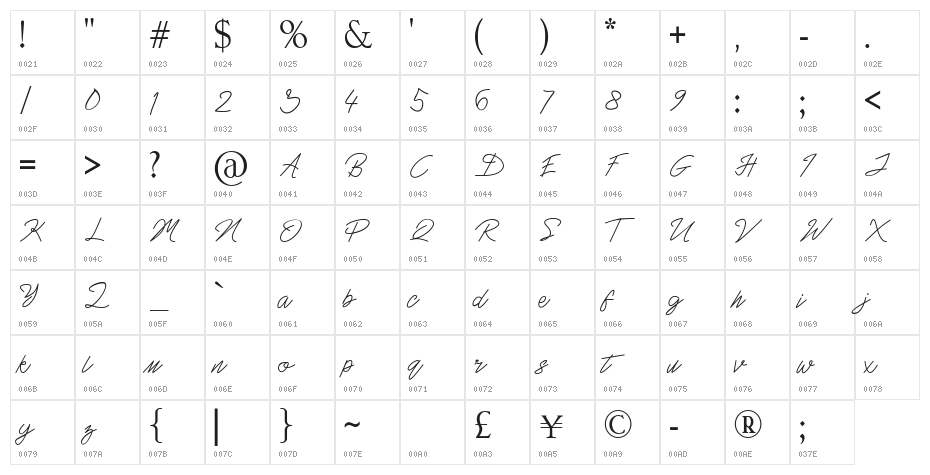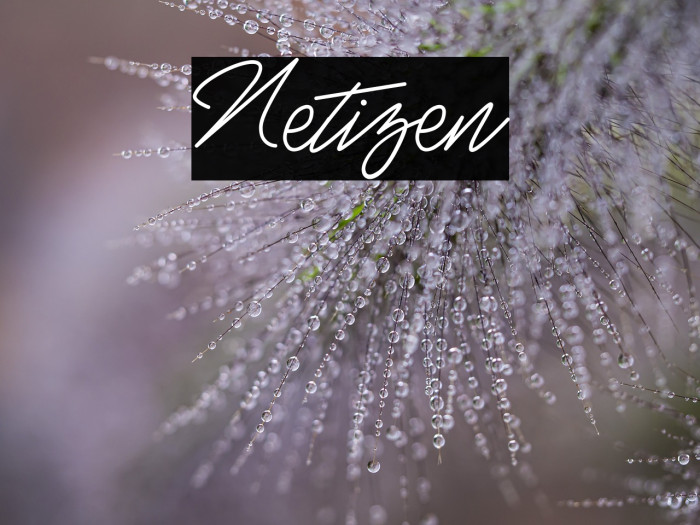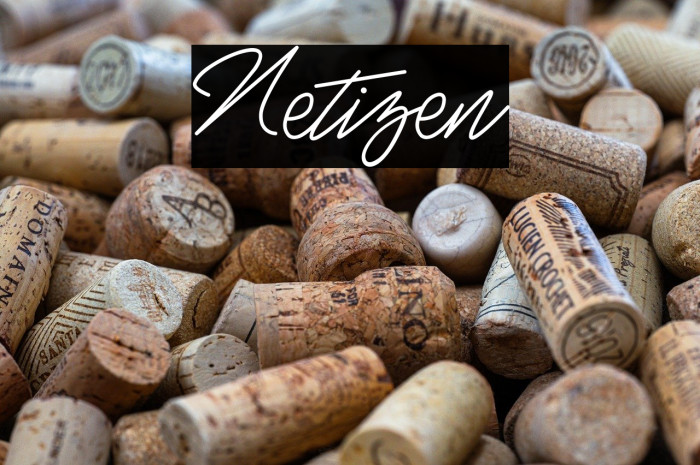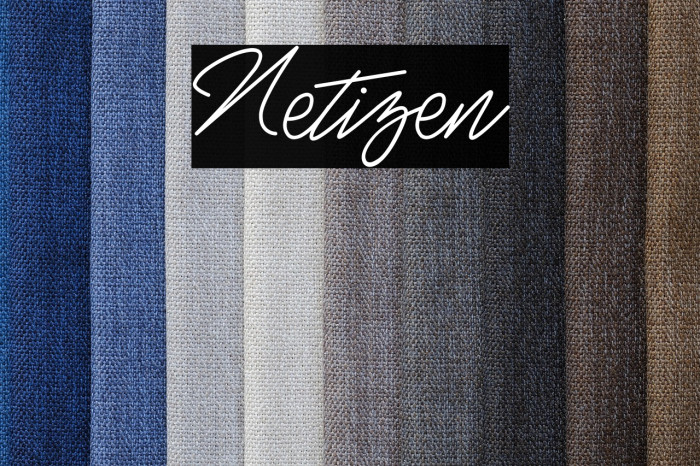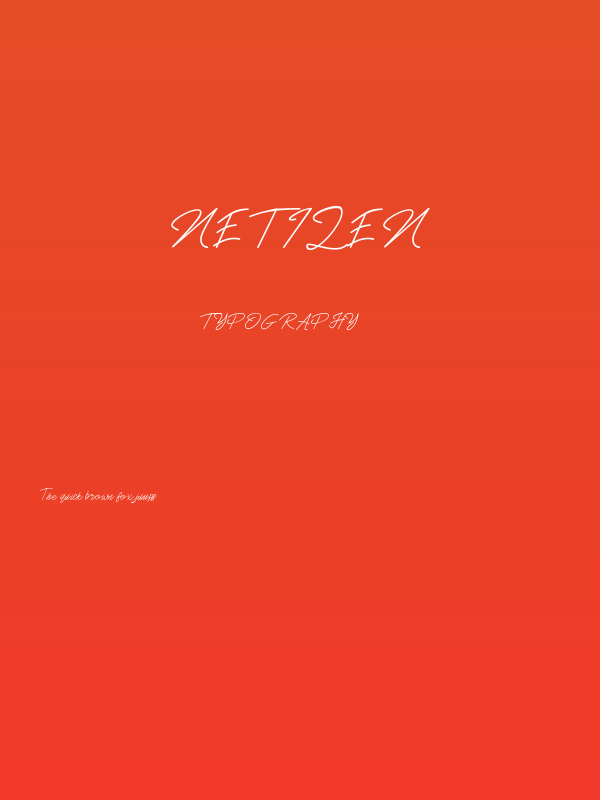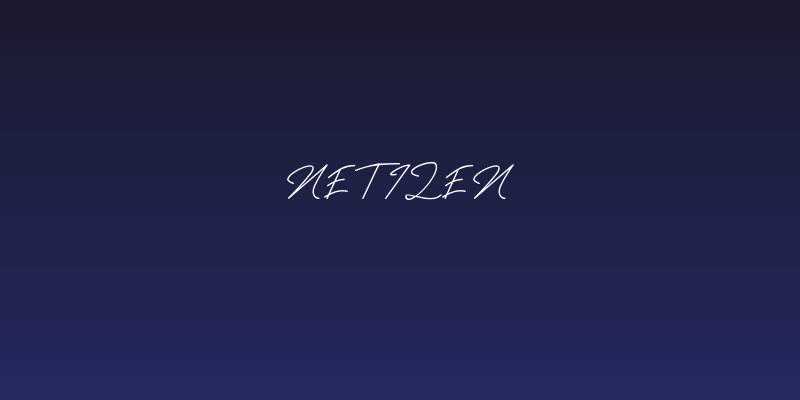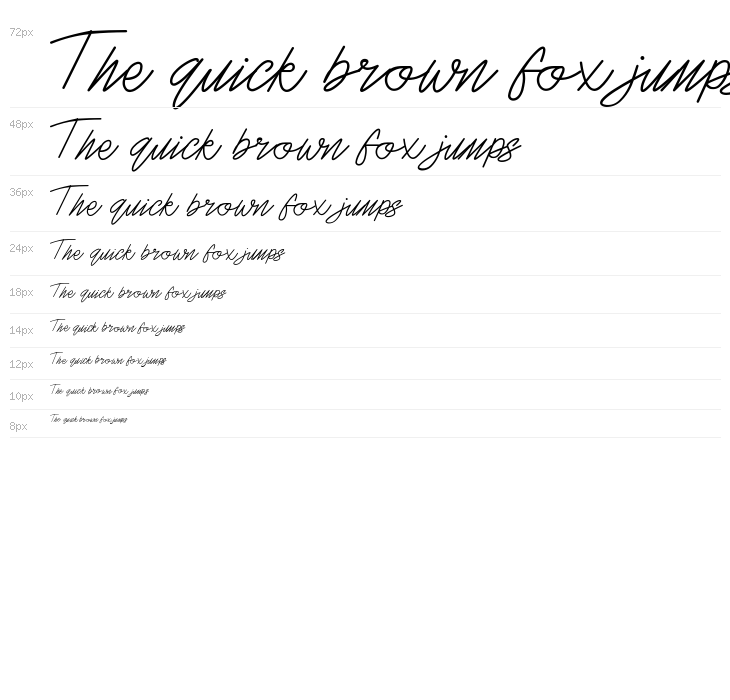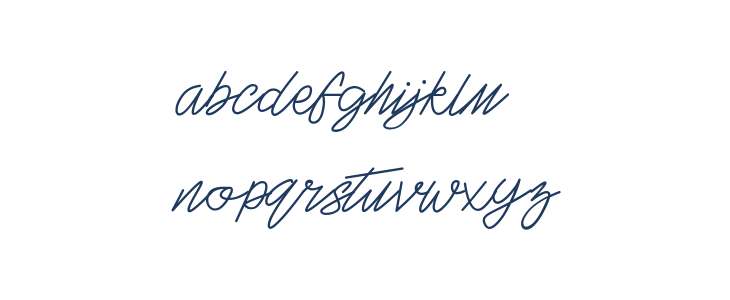
Netizen Font
Netizen Description
This font features a flowing, cursive style that mimics elegant handwriting. The letters are connected, creating a seamless and fluid appearance. The uppercase letters are slightly more elaborate, with graceful loops and curves, while the lowercase letters maintain a consistent, smooth flow. The numerals and special characters are designed to match the overall aesthetic, with a playful yet sophisticated look. This font is ideal for projects that require a personal touch, such as invitations, greeting cards, or branding materials. Its stylish and artistic nature makes it stand out, while still being legible and versatile.
Overall StyleElegant, Artistic
Use CaseHeadlines, Invitations, Branding
Proposed ProjectsIdeal for wedding invitations, greeting cards, personal branding, and artistic projects.